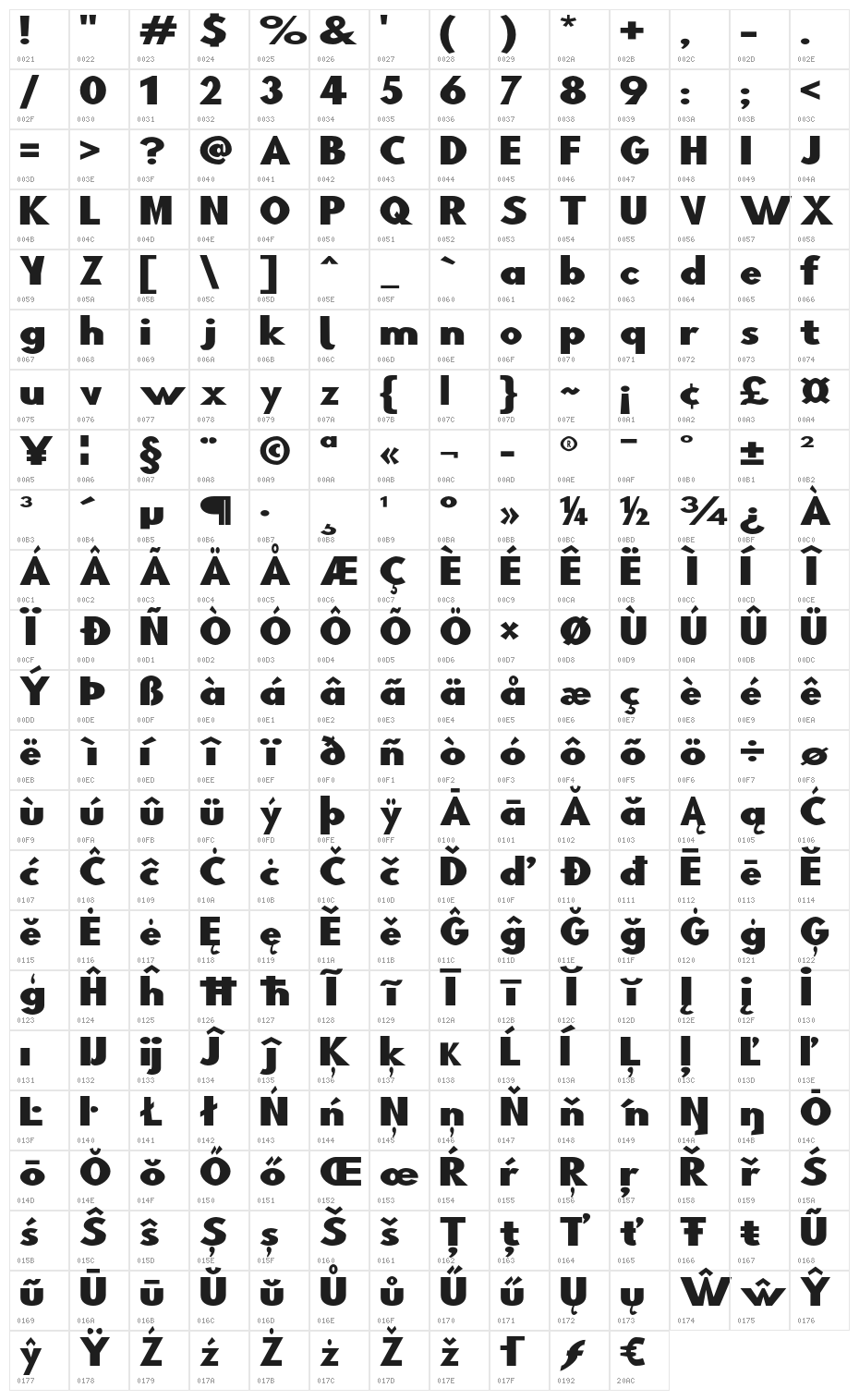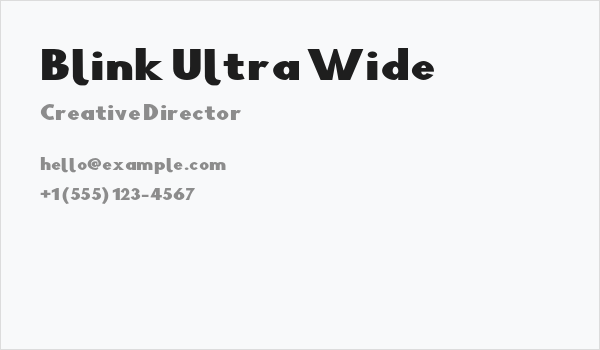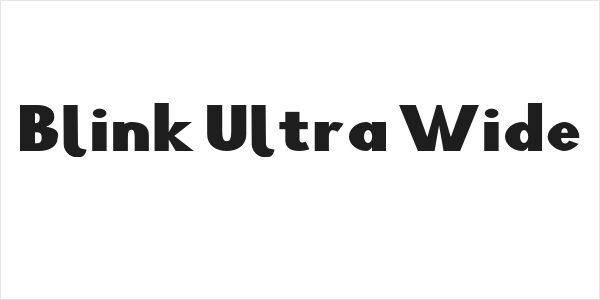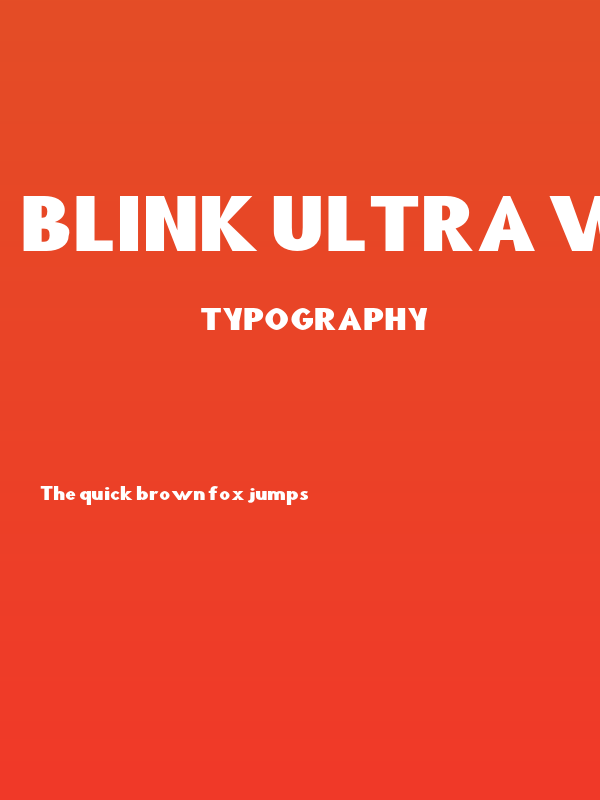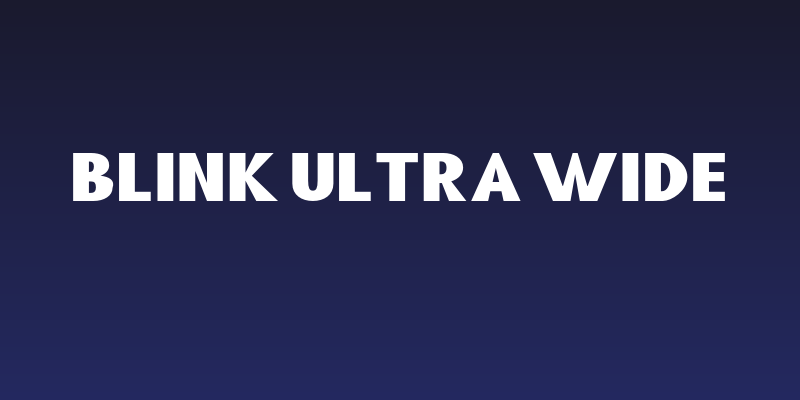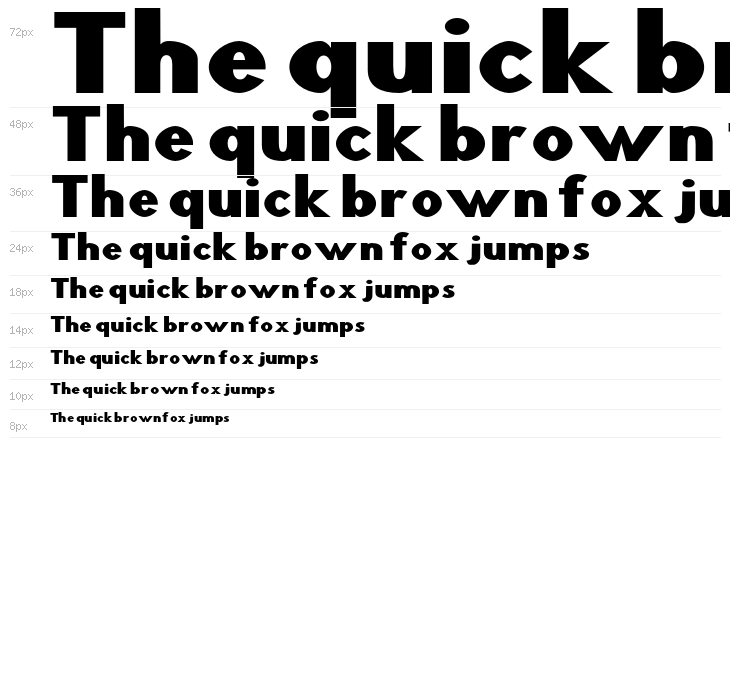
Blink Ultra Wide Font
Blink Ultra Wide Description
This font features a bold and impactful design with thick, uniform strokes that convey strength and modernity. The characters are wide and expansive, providing a sense of stability and confidence. The uppercase letters are particularly striking, with a commanding presence that makes them ideal for attention-grabbing headlines. The lowercase letters maintain the boldness while offering a slightly softer edge, making them versatile for various design applications. The numerals are equally robust, ensuring clarity and readability. Special characters are designed with the same bold aesthetic, ensuring consistency across all text elements.
| Proposed Projects | Ideal for branding, posters, headlines, and any project requiring a strong visual impact. |